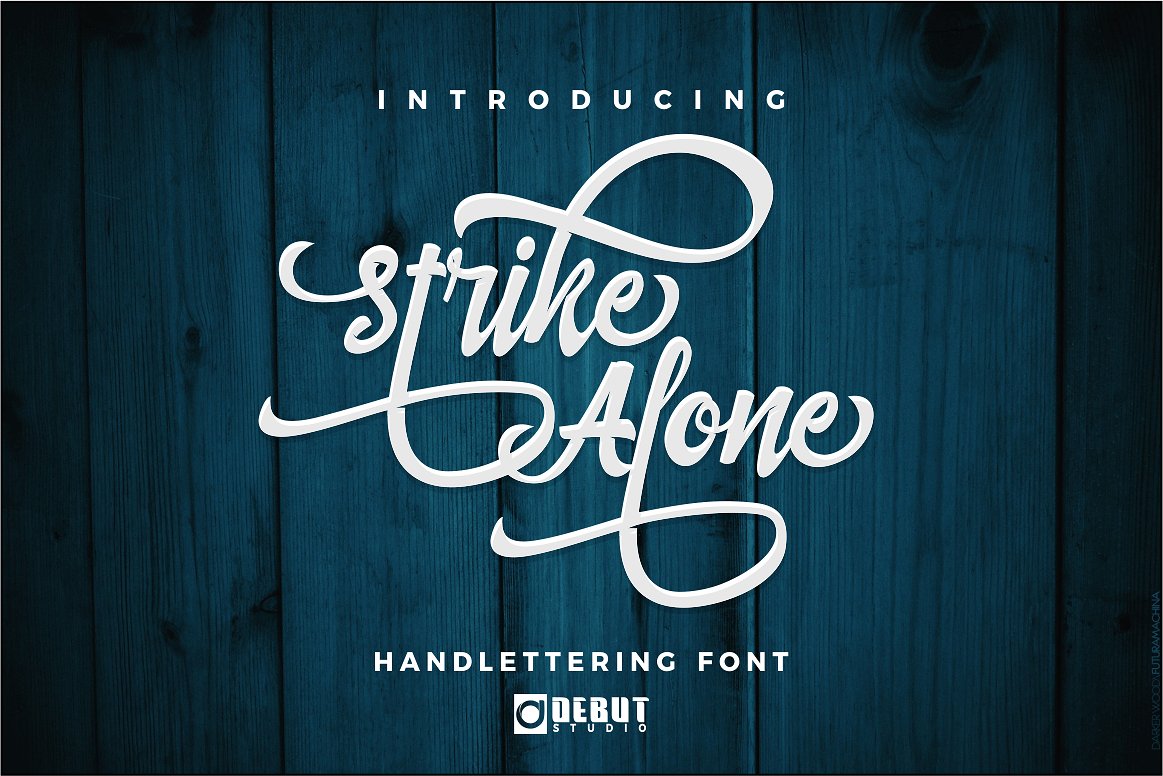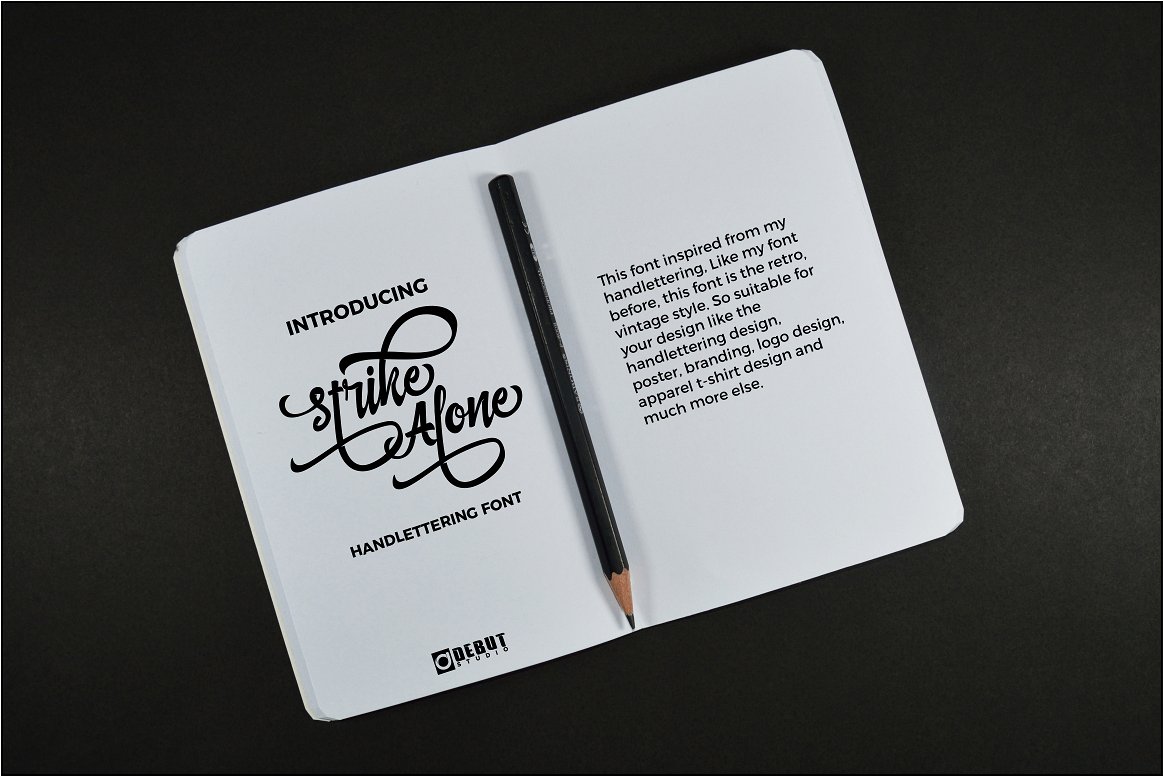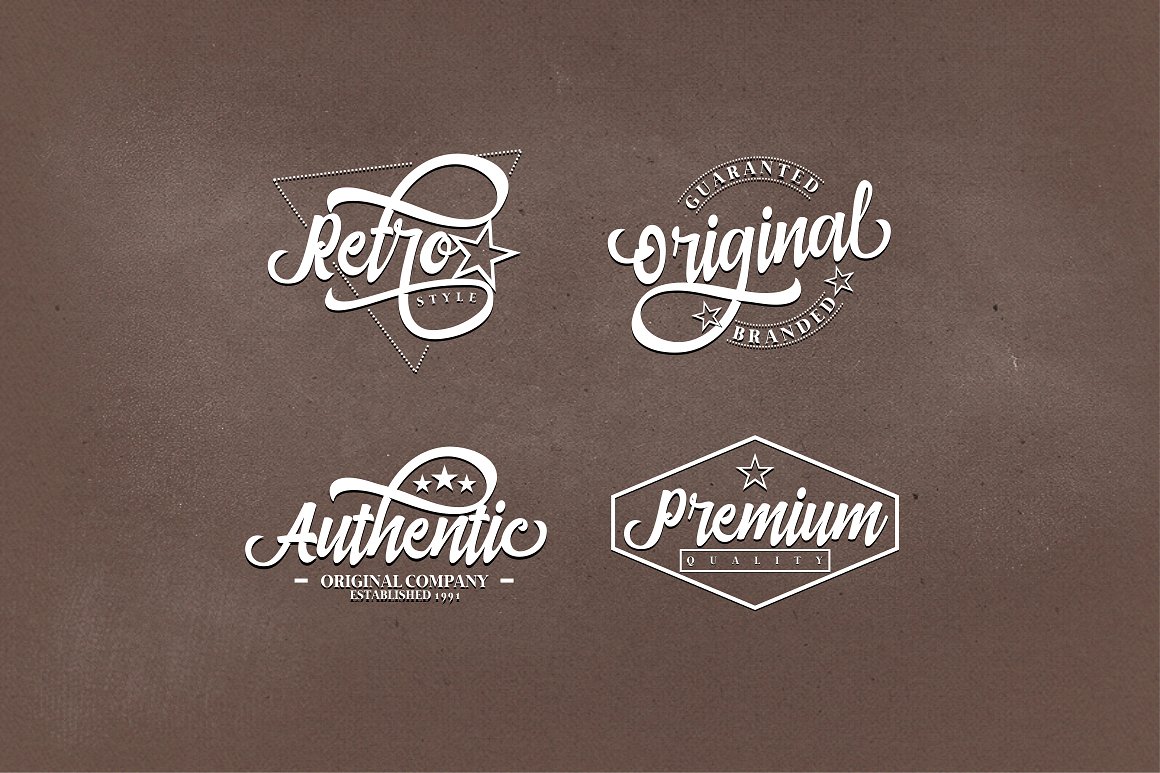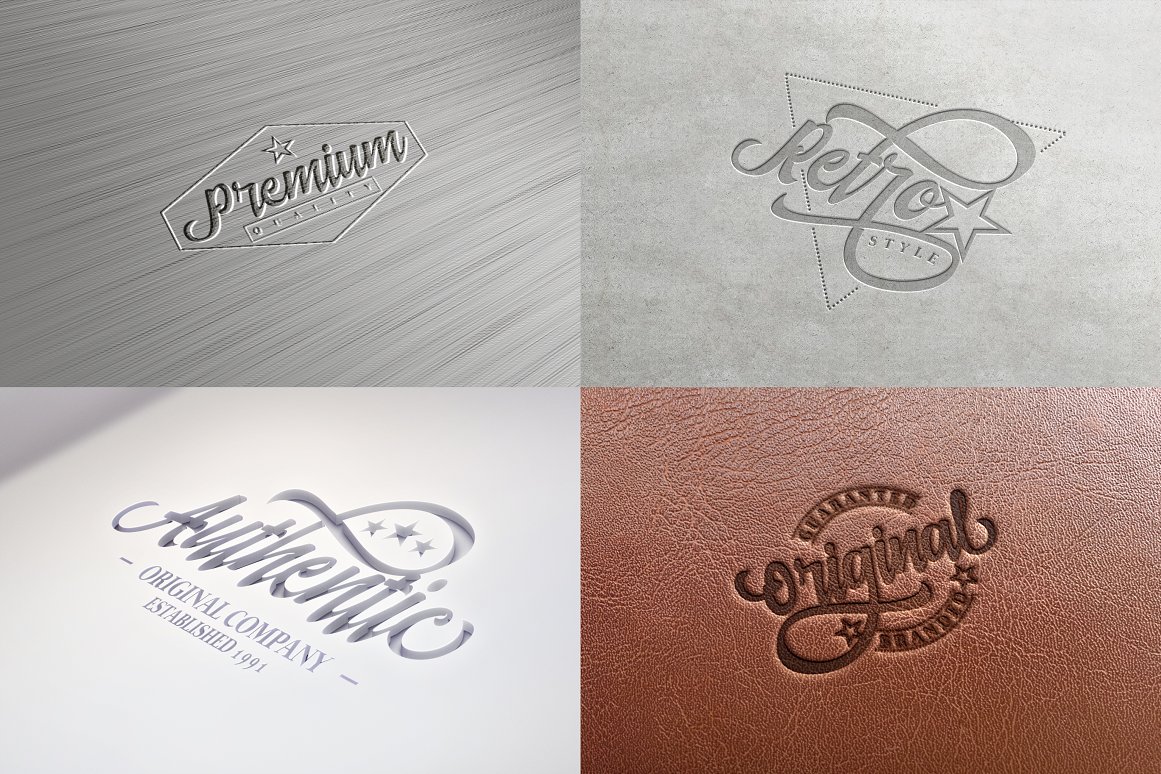
Strike Alone Font
About Strike Alone Font
Strike Alone is a stunning hand-lettered font created by Debut Studio.
The font has a slightly vintage/retro feeling to it. It’s suitable for many types of projects and comes packed with extra swashes to give some more flair to your designs.